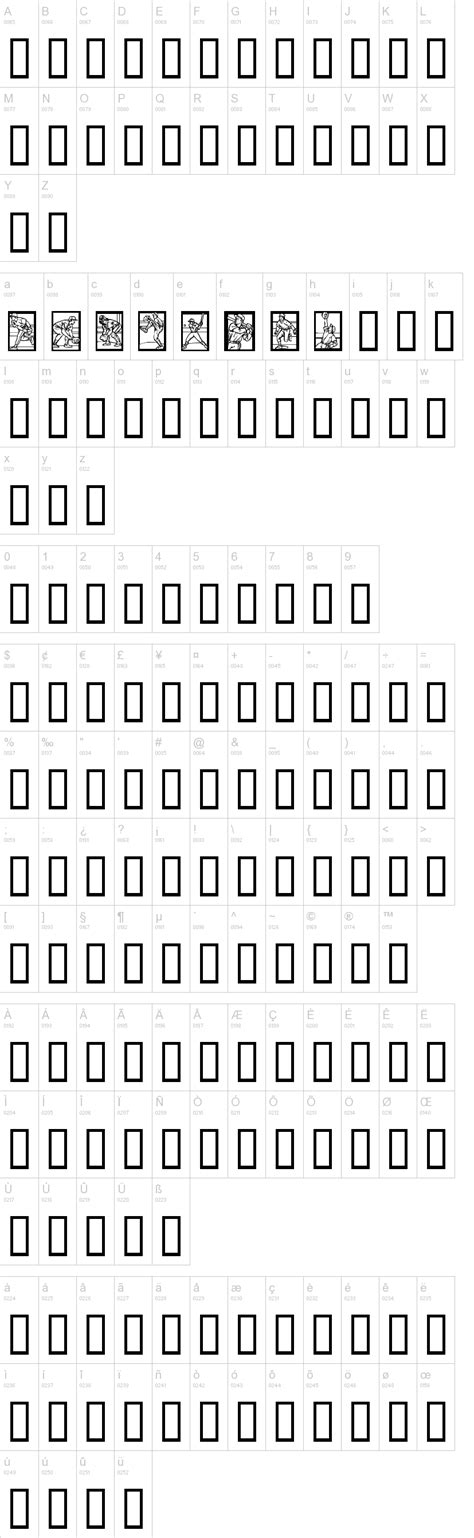
Hey guys! Ever wanted to create some awesome baseball-themed designs? Whether you’re a coach, a player, a designer, or just a massive fan, the right font can totally transform your project. It can bring that authentic, classic feel to any project you are working on. Today, we’re diving deep into the world of baseball fonts and how you can find the perfect one using the amazing DaFont generator. Let’s get started, shall we? Finding the ideal font can sometimes feel like searching for a home run in the dark. But don’t worry, I got you covered, we’ll go through the best fonts, and the best way to get them.
The Importance of a Good Baseball Font
Alright, so why is choosing the right baseball font so crucial? Think about it: fonts aren’t just about the letters; they communicate a vibe, a feeling. In the world of baseball, that vibe is all about tradition, power, and team spirit. The right font can instantly evoke a sense of nostalgia for those classic games. It can also shout out the excitement of a high-stakes play-off. Imagine the difference between a generic font and one that looks like it was ripped straight from an old stadium scoreboard. A well-chosen baseball font can add instant credibility to your designs, whether you’re creating team logos, posters, social media graphics, or even personalized merchandise. It bridges the gap between digital content and the timeless sport, creating a more engaging experience for your audience. That’s why it’s worth taking the time to find the perfect font that really captures the essence of the game. So, let’s get on the right track! You’re not just picking letters; you’re picking the soul of the sport.
Your choice of font really has the power to set the tone, whether you’re going for a vintage, hand-lettered look or a bold, modern feel. The font should communicate what the essence of your project or team is. This makes your work visually interesting, and also ensures that the message is clear. A properly selected font makes it clear that you get what baseball is about. It could even be what sets your work apart.
Diving into DaFont: Your Baseball Font Goldmine
Now that we know the importance, let’s head over to DaFont, your go-to source for fonts. DaFont is a huge online library packed with thousands of fonts, including a fantastic selection of baseball fonts . It’s super easy to use, and you can preview fonts before you download them. This is key because not all fonts are created equal, and you’ll want to see how your text looks before you commit.
To get started, simply go to DaFont’s website and use the search bar. Try searching for terms like “baseball”, “sport”, “athletic”, or even specific team names if you’re feeling ambitious. You can browse through the results and check out the previews of each font. DaFont lets you type in your own text to see how it looks. You can try different words and phrases to see how your logo or design will really come to life. Make sure to download the right font for your design. This simple step can save you a lot of time. This way you can see what works best before downloading and using a font. Remember, a good visual is key. DaFont gives you that option. With DaFont, you’re not just downloading a font; you’re unlocking a treasure trove of creative possibilities. So, get ready to find some home runs, literally and figuratively.
Key Features and Font Styles for Baseball Designs
So, what should you look for in a baseball font ? Well, that depends on the style you’re going for. There are tons of options, so take your pick. But let’s break down some key features and popular styles:
• Script Fonts : These fonts often mimic handwritten styles and are perfect for adding a touch of vintage charm. They’re great for team names, logos, and even player names on jerseys. They bring a classic, nostalgic feel.
• Block Fonts : These are bold, impactful fonts that are great for headlines and anything that needs to grab attention. They convey strength and power. You can use this for a bold statement or to highlight team stats. This style is an ideal choice for a modern look.
• Rounded Fonts : These fonts provide a softer, friendlier feel. They’re ideal for a more approachable design. You can use these for logos, merchandise, or any design that wants a friendly tone.
• Shadow and Outline Fonts : These add depth and dimension to your text, creating a 3D effect. These are perfect for designs that need to stand out. They often feature a shadow or outline, making the text pop. This is a good way to give your text a cool look.
Keep in mind that the best font will match the tone of your project. Also, consider the readability and versatility of the font. It needs to work across different sizes and applications. Think about the overall feel that you are trying to create. A good font makes a big difference. This includes legibility, style, and how it fits into your project.
Conclusion: Your Home Run with Baseball Fonts
There you have it, guys! A complete guide to finding and using the perfect baseball font . With DaFont and these tips, you’re well on your way to creating stunning baseball-themed designs. Whether you’re designing for a local team, personal projects, or professional clients, the right font can make all the difference. Remember, the best designs come from a combination of creativity and the right tools. So, get out there, explore the world of fonts, and let your creativity run wild! Now go forth and make some amazing designs. You’ve got this, and I’m sure you will do great. If you need any other help, let me know, and I’ll see what I can do. Happy designing!